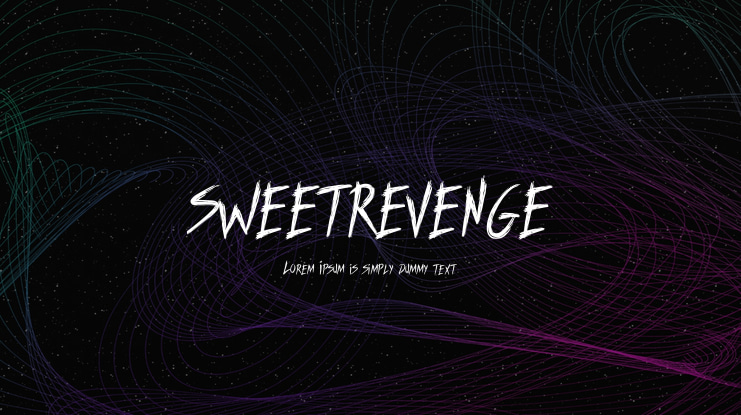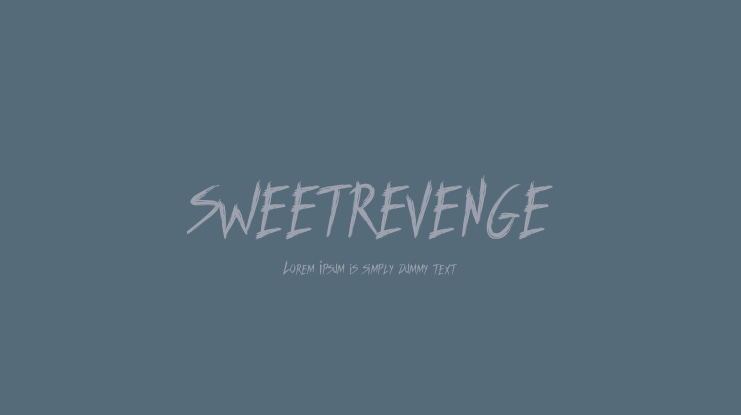
SWEETREVENGE Font
Sweet Revenge is a fun display typeface. It will lift your design and add a cheeky touch to each of your creations. Use this font for your designs and explore its endless possibilities.